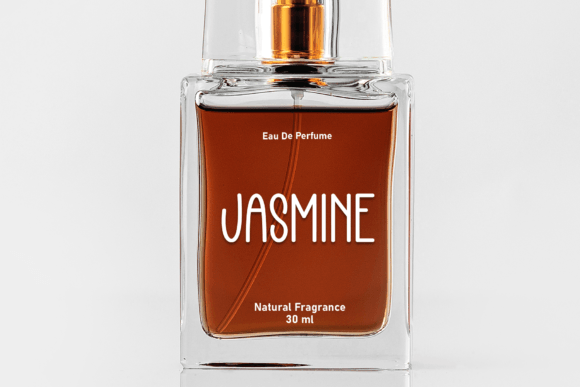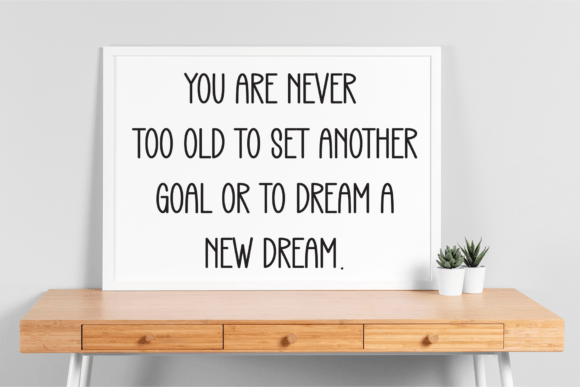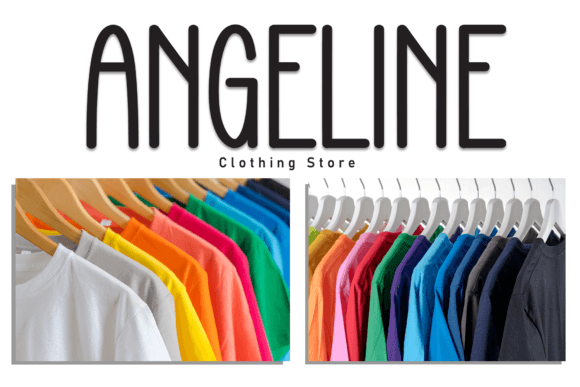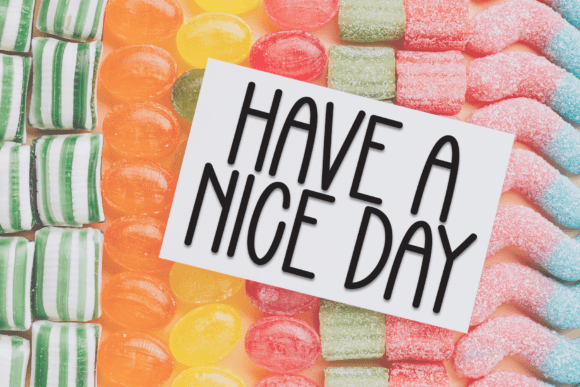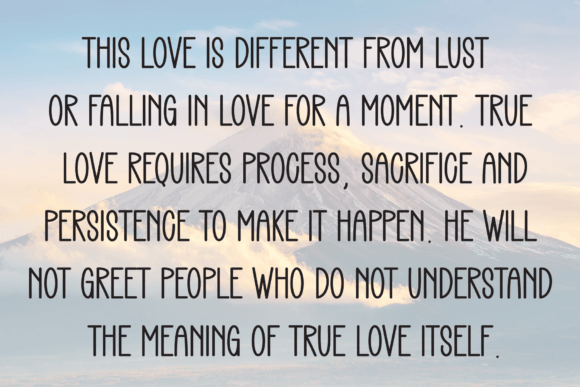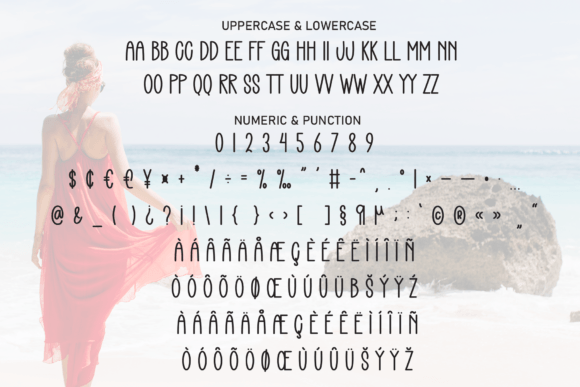
The Perfect Match for Your Coastal Getaway
Do you remember that moment when you finally decided to take a break from the hustle and bustle of city life and head to the beach? The sound of the waves, the warmth of the sun, and the smell of saltwater – it’s a sensory experience that’s hard to beat. As you’re planning your next beach vacation, have you ever stopped to think about the typography that will help you share the excitement with friends and family?
Enter Beach Vacation Font, a clean and approachable sans-serif font designed to capture the essence of a carefree beach day. This versatile font is perfect for designers looking to create user interfaces, informative signage, and modern branding that exudes simplicity and readability.
Whether you’re working on a digital project or printing out flyers for your next beach bash, Beach Vacation Font is the perfect choice to make your message stand clear and approachable. Its friendly character and clean lines make it a valuable addition to any designer’s toolkit.
Beach Vacation Font Key Features
- Font Family: Beach Vacation Font is a unique, custom-designed font that includes a range of characters and symbols.
- Unique Characteristics: Features a relaxed, beach-inspired aesthetic with rounded shapes, gentle curves, and a subtle texture that evokes the feeling of sand and sea.
- Character Set: Includes a comprehensive set of characters, including uppercase and lowercase letters, numbers, punctuation marks, and symbols.
Beach Vacation Font Review
Overall, I think the Beach Vacation Font is a fun and playful addition to any design project. ✨ It’s perfect for capturing the carefree spirit of a beach vacation. The font’s rounded edges and relaxed feel make it a great choice for designs that need to evoke a sense of fun and leisure.
- ✨ The font’s versatility – it can be used for a wide range of design projects, from social media graphics to advertising campaigns.
- ✨ The font’s unique character set – it includes a range of fun and quirky characters that can add a personal touch to your designs.
- ✨ The font’s readability – it’s easy to read, even at small font sizes, making it a great choice for designs where space is limited.
- ⚠️ The font may not be suitable for more formal or professional designs, as it can come across as too casual or playful.
- ⚠️ Some users may find the font’s rounded edges and relaxed feel to be too cliche or overused.
Overall, I think the Beach Vacation Font is a great choice for designers who want to add a fun and playful touch to their projects. While it may have some limitations, it’s a versatile and unique font that can help you stand out from the crowd.
Tips for Getting the Most Out of Beach Vacation Font
For the best results, use Beach Vacation Font in combination with bright and pastel colors to evoke a beachy vibe.
Use Beach Vacation Font for titles, headings, and short paragraphs to add a touch of whimsy to your design.
Beach Vacation Font is perfect for:
- Summer-themed designs
- Beach party invitations
- Travel brochures
- Summer-themed social media posts
Alternatives to “Beach Vacation Font” for Designers
Lato is a sans-serif font that is perfect for modern and minimalist designs. It is highly legible and works well for body text. When to use: Use Lato for clean and simple designs, such as blogs, magazines, and corporate websites. Comparison: Lato has a more neutral tone compared to Beach Vacation Font, which has a playful and casual feel.
Pacifico is a beautiful script font that is reminiscent of handwritten letters. It is ideal for creative and artistic designs. When to use: Use Pacifico for designs that require a touch of elegance and sophistication, such as wedding invitations, greeting cards, and luxury brands. Comparison: Pacifico has a more elegant and refined feel compared to Beach Vacation Font, which has a casual and carefree vibe.